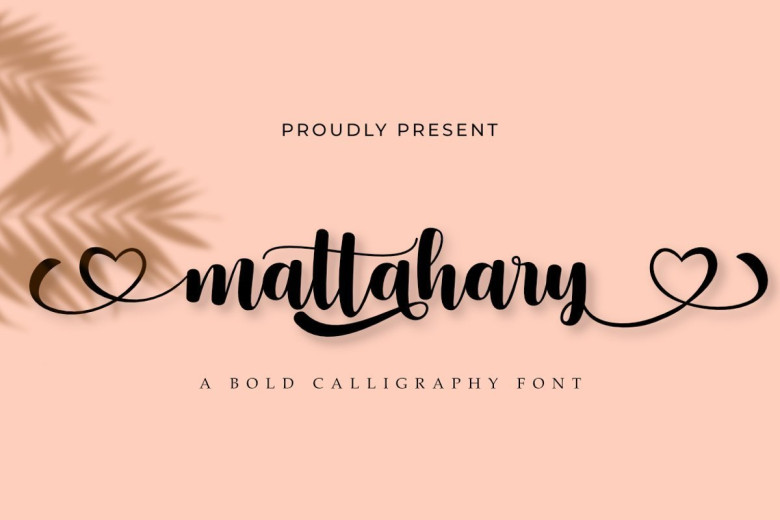
Mattahary Bold Calligraphy Script Font
Mattahary Bold Calligraphy Script Font was built with Open Type features and includes initial and final touches, numerals, punctuation marks, alternation, alloys, and also supports other languages.
Mattahary Font with natural handwriting style perfect for many different project such as logos & branding, invitation, stationery, wedding designs, social media posts, advertisements, product packaging, poster, product designs, label, photography, watermark, special events or anything, quotes, fashion, etc…